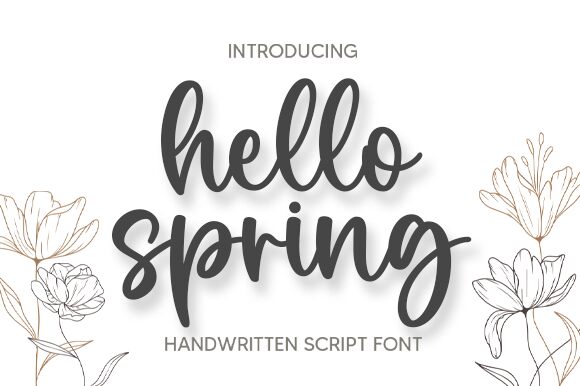
Meet Hello Spring, the lovely handwritten font designed by Nirmala Creative. This font captures the essence of spring with its playful and whimsical style, making it perfect for projects that need a touch of charm and warmth. Whether you're creating invitations, greeting cards, or social media graphics, Hello Spring's semi-bold typeface will add a unique flair to your designs. The font's medium width makes it easy to read while still maintaining its characterful appearance. Let Hello Spring bring joy to your next creative endeavor!